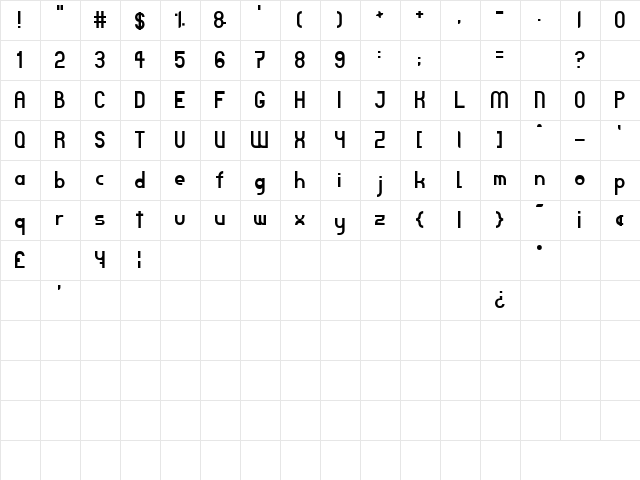
TPF Janus Regular Font Preview
TPF Janus Regular
TPF Janus Regular Font Details
Design Context for TPF Janus Typeface
TPF Janus is a composed and adaptable typeface that performs quietly and consistently across a wide range of design contexts.